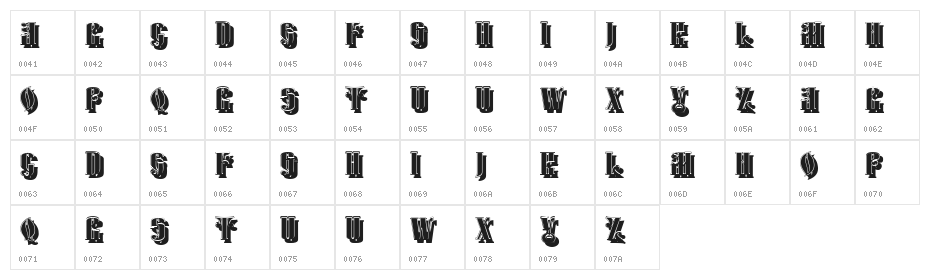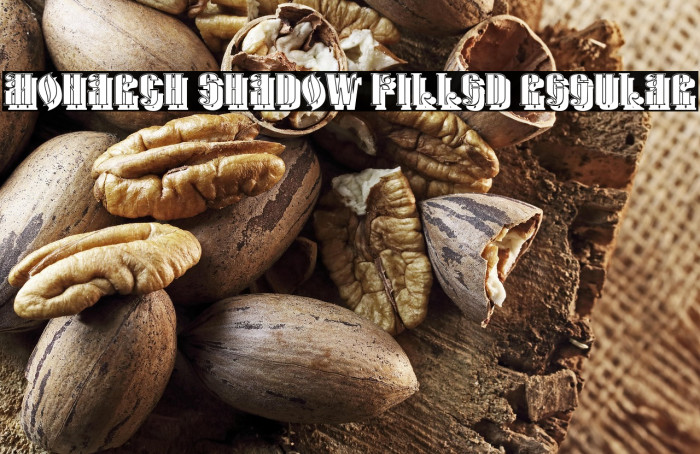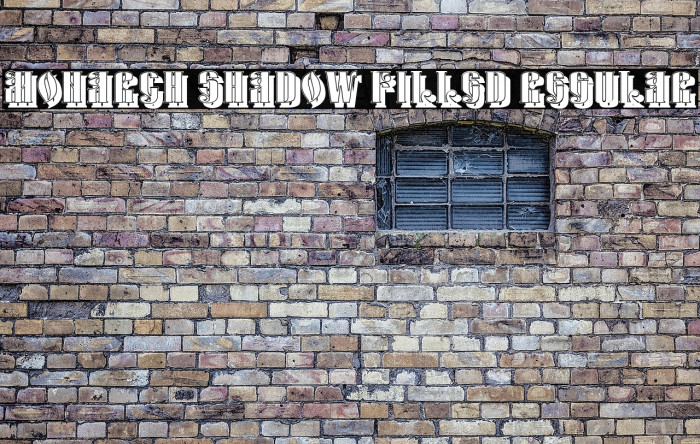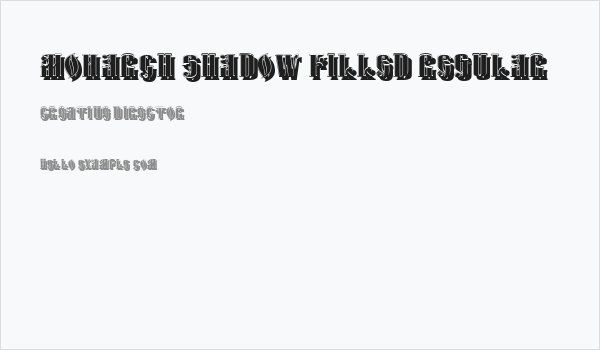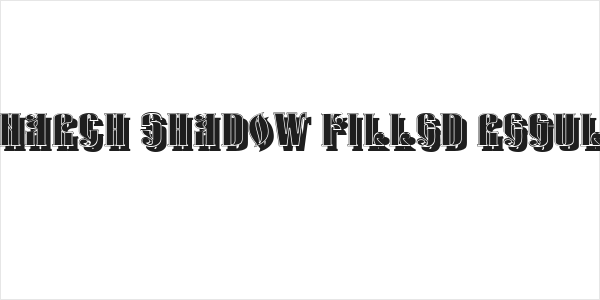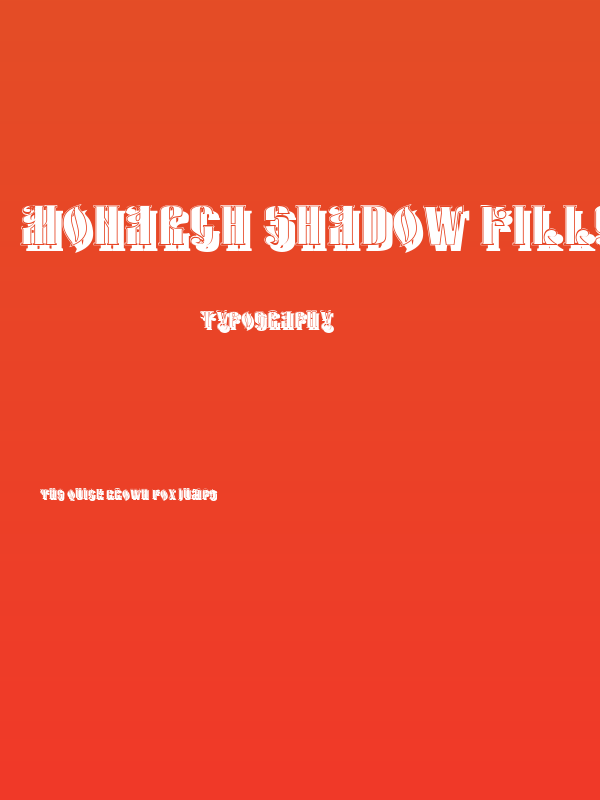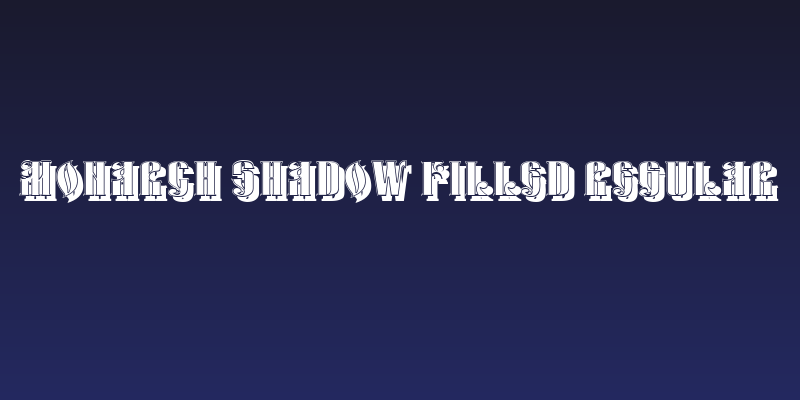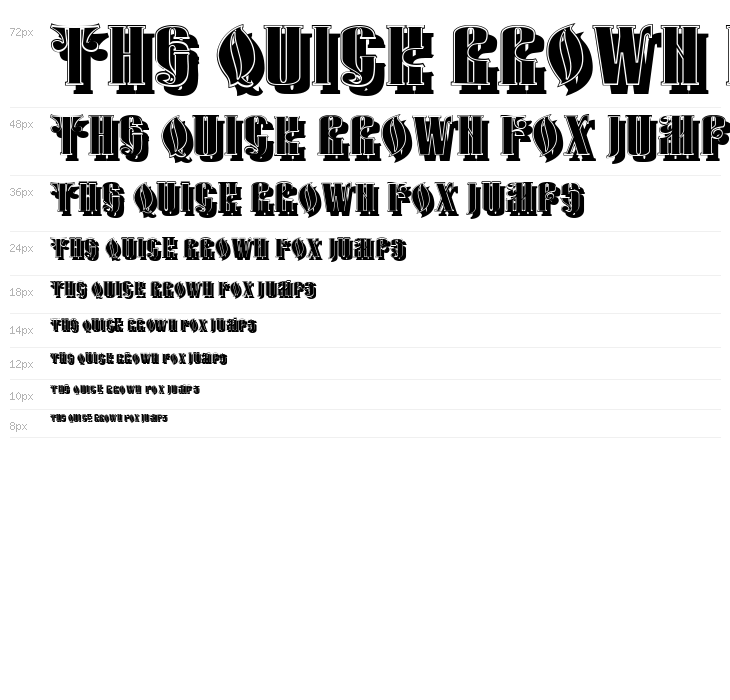
Monarch Shadow Filled Regular Font
Monarch Shadow Filled Regular Description
This font features a bold and dramatic style with shadow-filled characters that create a striking visual impact. The uppercase letters are ornate, with intricate detailing and a strong presence. The design incorporates a blend of vintage and modern elements, making it suitable for eye-catching headlines and decorative purposes. The characters are wide and have a substantial weight, contributing to their commanding appearance. The shadow effect adds depth, enhancing the three-dimensional look of the text.